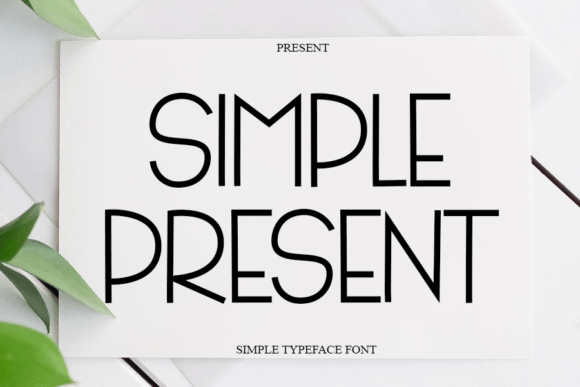
About Simple Present Font
**Simple Present** is a cool and modern handwritten font that adds a natural and fresh touch to your projects. Its contemporary style brings a sense of modernity and simplicity to your designs, making them visually appealing and engaging.
This font is versatile and suitable for a wide range of creative applications, including branding, logos, product packaging, social media graphics, website design, posters, and more. Its handwritten appearance adds a personal and authentic feel to your projects, helping them stand out and leave a lasting impression.
**Simple Present** is characterized by its clean and well-crafted characters, making it suitable for both digital and print projects. Its simplicity and modernity make it adaptable to various design styles and themes.
In summary, **Simple Present** is a cool and modern handwritten font that enhances the beauty of your projects. Whether you’re working on personal or professional design endeavors, this font can bring a sense of freshness and simplicity to your work, creating visually pleasing and memorable designs.